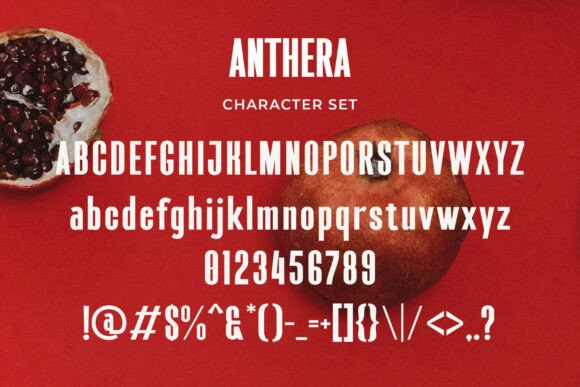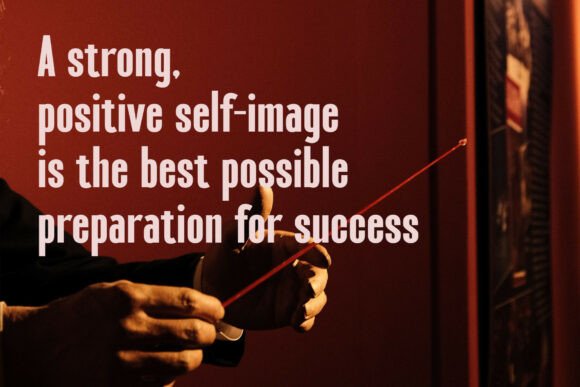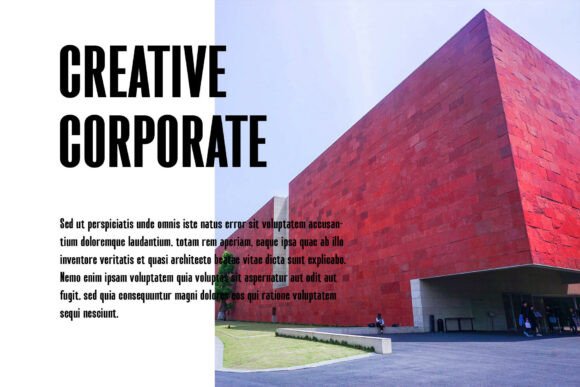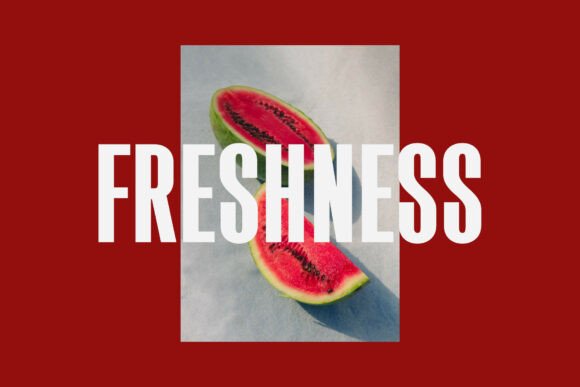
I still remember the countless hours I spent searching for the ideal font for a client’s branding project. The goal was to create a bold, modern look that would make their business stand out. As I scrolled through font after font, I realized that most of them either fell flat or looked too cluttered. That’s when I stumbled upon Anthera, a sleek and contemporary condensed sans serif font that changed the game.
First Impressions: A Love Affair with Anthera
Anthera is more than just a font – it’s a design statement. With its sharp lines and narrow structure, it’s perfect for headlines, posters, editorial layouts, branding, and web design. This font brings a minimalist edge and modern appeal to any project that demands clarity and sophistication.
What I Love About Anthera ✨
- ✅ Clean Readability: Anthera’s condensed design makes it easy to read, even in small sizes.
- ✅ Bold Impact: The font’s sharp lines and modern appeal make it perfect for headlines and titles.
- ✅ Versatility: Anthera works well in various design contexts, from digital to print.
- ✅ Easy to Pair: The font’s neutral tone makes it easy to pair with other fonts and design elements.
- ⚠️ Limited Emphasis on Decorative Elements: Anthera is a sans serif font, so it may not be the best choice for designs that require elaborate decorative elements.
- ⚠️ May Not Work Well in Body Text: Due to its condensed design, Anthera may not be the best choice for body text, especially in longer paragraphs.
The Backstory Behind Anthera
Anthera was designed with the goal of creating a modern and sleek font that would meet the demands of contemporary design. The designer aimed to create a font that would be both clean and legible, while also making a bold statement. With its sharp lines and condensed structure, Anthera has become a popular choice among designers looking for a font that exudes sophistication and clarity.
| Font Name | Anthera Font |
| Author | Ariya Works Studio |
Q: What is Anthera font?
A: Anthera is a sleek and contemporary condensed sans serif font designed for bold impact and clean readability.
Q: What is Anthera best used for?
A: Anthera is best used for headlines, posters, editorial layouts, branding, and web design.
Q: Can I use Anthera for body text?
A: While Anthera can be used for body text, it may not be the best choice due to its condensed design. It’s recommended to use Anthera for headlines and titles, and a more traditional font for body text.